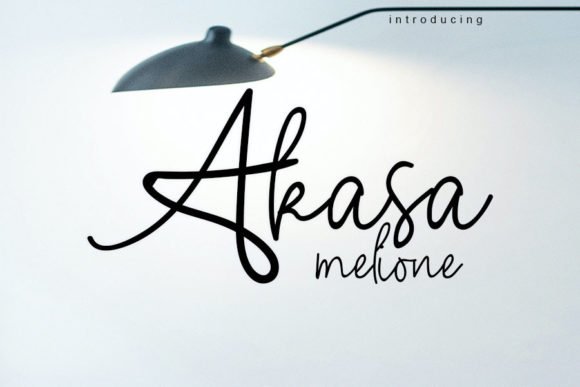
The Perfect Blend of Class and Creativity: Introducing the Akasa Melione Font
Have you ever been brainstorming for hours, pouring over ideas, only to have a single phrase or sentence jump out at you and change the entire direction of your project? That’s exactly what happened when we discovered the Akasa Melione Font. Its unique blend of classic calligraphy and modern flair was the spark we needed to bring our designs to life.
The Akasa Melione Font is a masterfully designed handwritten font that’s sure to become a true favorite among designers. Whether you’re working on a wedding invitation, a luxury brand’s marketing campaign, or a personal project, this font will elevate your work to new heights. Its versatility and timeless elegance make it a valuable addition to any designer’s toolkit.
Akasa Melione Font Key Features
- Unique Characteristics: The font features a unique blend of modern and traditional design elements, making it suitable for a wide range of applications, including branding, packaging, and editorial design.
- Language Support: Akasa Melione Font supports a wide range of languages, including Latin, Cyrillic, and Greek alphabets, making it a versatile choice for global design projects.
- Kerning and Ligatures: The font includes advanced kerning and ligature pairs, ensuring smooth text rendering and professional-looking typography.
Akasa Melione Font Review
As a designer, I was excited to dive into the Akasa Melione Font. Here’s my honest take on this font.
- The elegant and refined aesthetic of the font is a major plus. It’s perfect for high-end branding and luxury projects.
- The font’s unique letterforms and subtle flair make it stand out from more common serif fonts.
- The font is highly legible, even at smaller sizes, making it suitable for a wide range of applications.
- The font may be too ornate for some projects, which can make it difficult to read at a glance.
- The font’s high-end feel may not be suitable for more casual or everyday projects.
- The font’s limited character set may make it less versatile than some other fonts.
The Akasa Melione Font is a solid choice for designers looking to add a touch of elegance to their projects. While it may have some limitations, its unique aesthetic and high level of legibility make it a great option for high-end branding and luxury projects.
Use Akasa Melione Font for titles, headings, and emphasis to create visual hierarchy in your designs.
Combine Akasa Melione Font with other fonts to create a unique and eye-catching design.
Experiment with different font sizes, colors, and styles to achieve the desired effect.
Akasa Melione Font is suitable for:
Logo design
Brand identity
Advertising materials
Editorial design
Alternatives to Akasa Melione Font